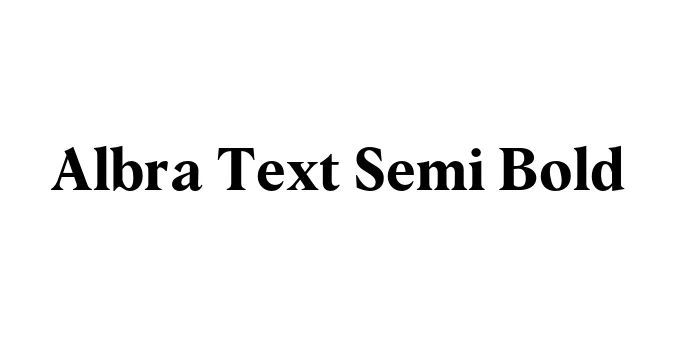
Albra Text Semi Bold
Designed by BumbumType
Albra Text Semi Bold is a sophisticated serif typeface that belongs to the wider Albra collection, designed to provide exceptional legibility and aesthetic elegance. It strikes a harmonious balance between traditional editorial design and contemporary digital requirements, ensuring that text remains clear and engaging across various mediums.
The Semi Bold weight is particularly effective for creating visual hierarchy, offering enough weight to command attention while maintaining the graceful curves and moderate contrast characteristic of the family. It is meticulously crafted to perform well in both body text and sub-headings, making it a versatile tool for professional typographers.
Albra Text Semi Bold Best Uses
Perfect for magazines, journals, and long-form articles where readability is key.
Ideal for high-end corporate identities and sophisticated brand messaging.
Optimized for screen readability in high-quality blog posts and digital news platforms.
Excellent for body text in printed literature and academic publications.